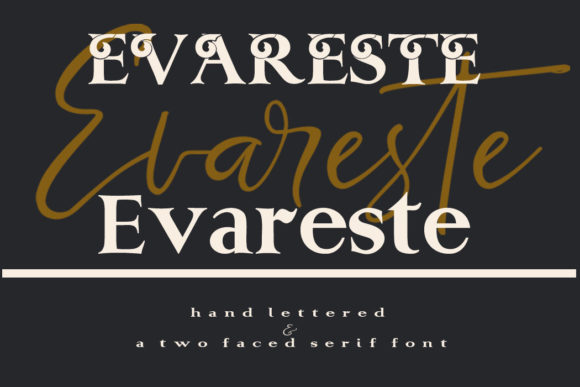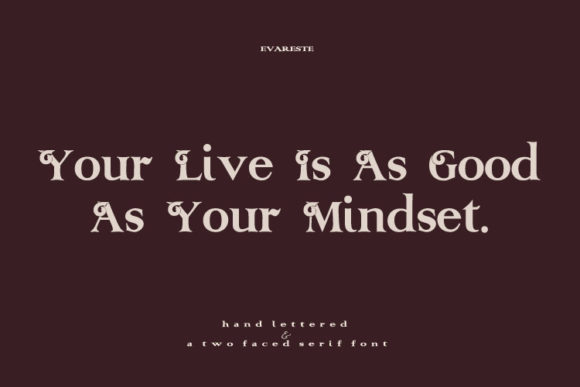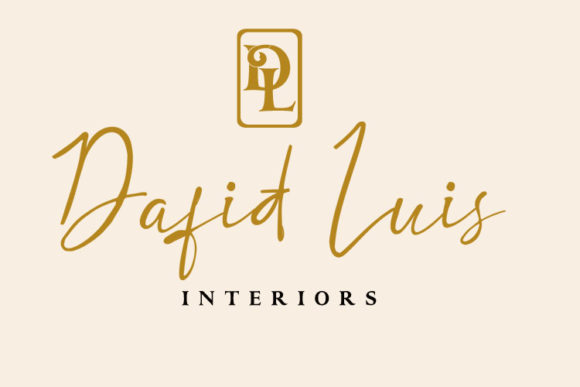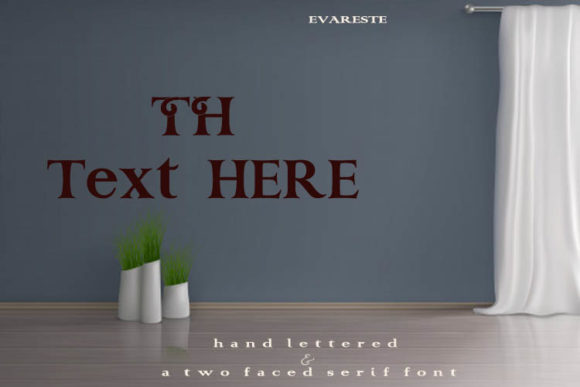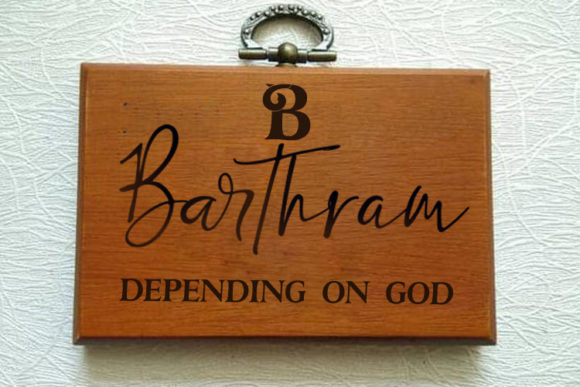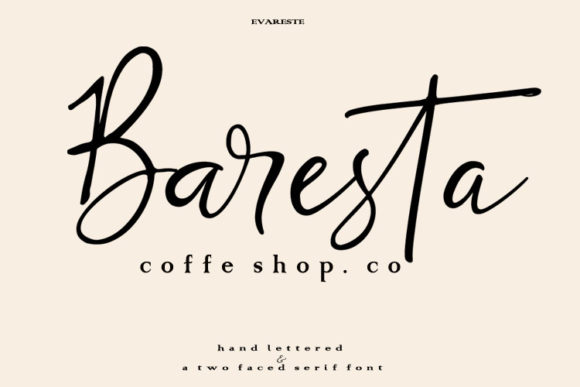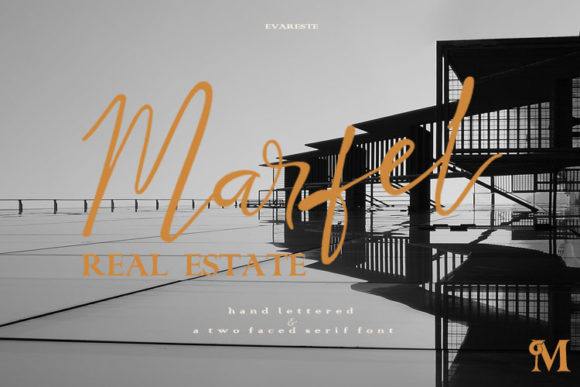
Evareste Duo Font
About Evareste Duo Font
Evareste duo is a match made in heaven, the authentic glyphs of the script perfectly complement the serif’s style. Combining these two fonts on your next design will give your next design a modern and fancy feel.
This versatility means that this font can be used in a wide variety of applications from headlines, to DIY projects- the only limit is your imagination!